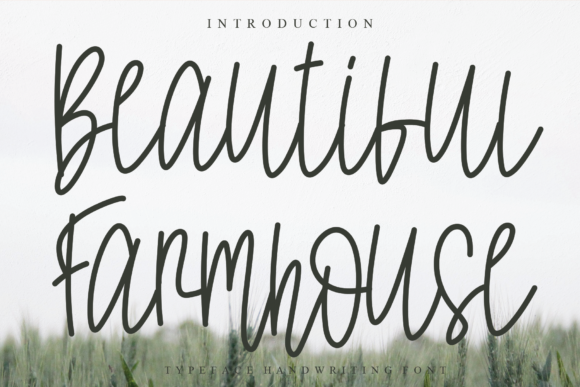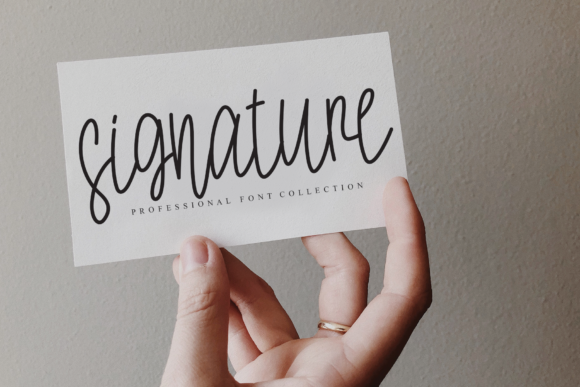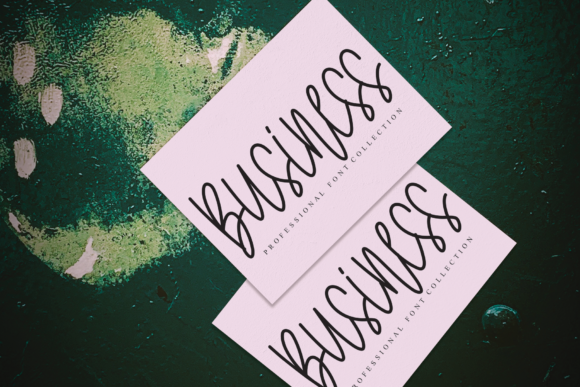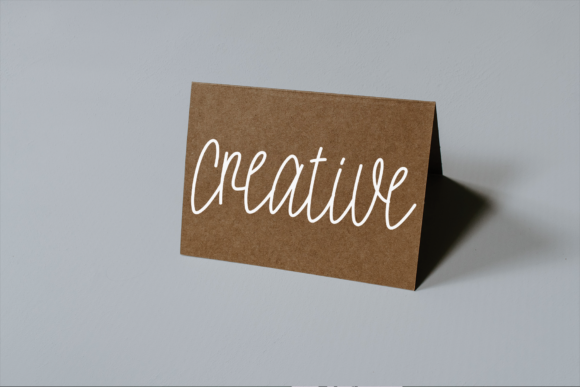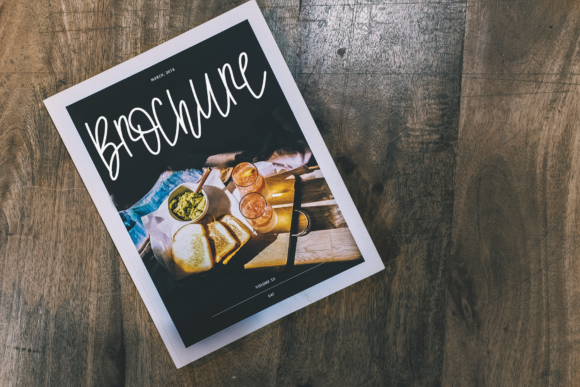
Beautiful Farmhouse Font
About Beautiful Farmhouse Font
Beautiful Farmhouse is a cool, relaxed and casual handwritten font. No matter the topic, this font will be an incredible asset to your fonts’ library, as it has the potential to elevate any creation.